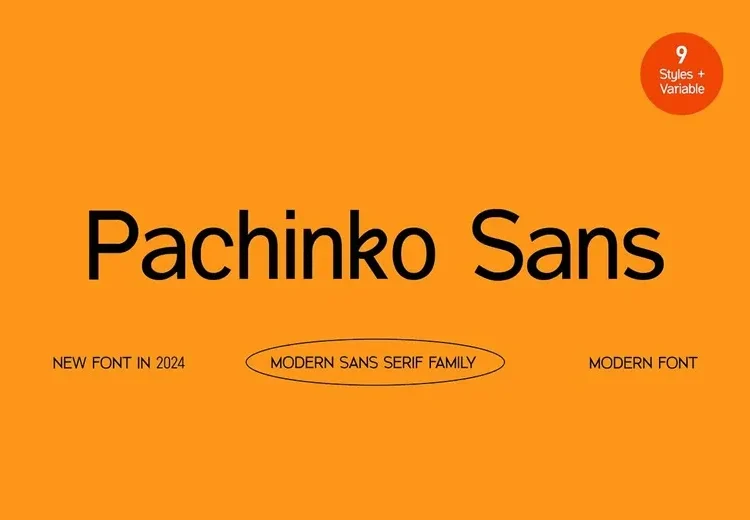
Pachinko Sans Font Family
Pachinko Sans Font Family is a clean and simple sans-serif typeface that boasts a contemporary design with excellent legibility. Its minimalist and modern appeal makes it highly versatile for a wide range of creative projects. Whether you are working on signatures, letterheads, logos, wedding invitations, quotes, novel or magazine covers, website headers, or branding, Pachinko Sans delivers a fresh and professional look.
This font family’s sleek, no-fuss style allows it to complement various design settings, ensuring readability while maintaining a stylish edge. It’s a great choice for both professional and personal projects requiring clarity and sophistication.